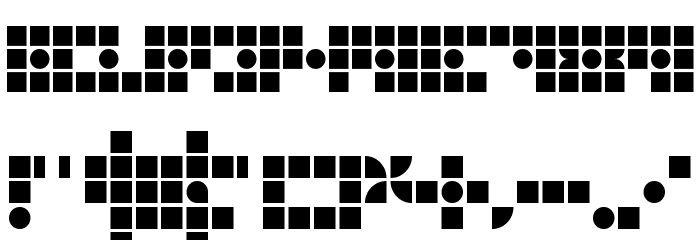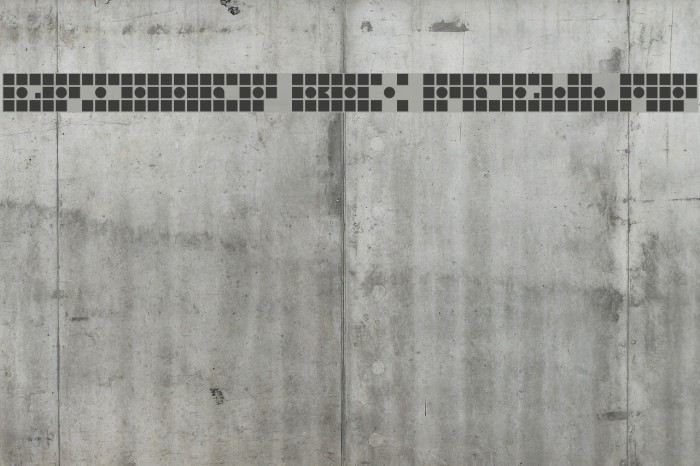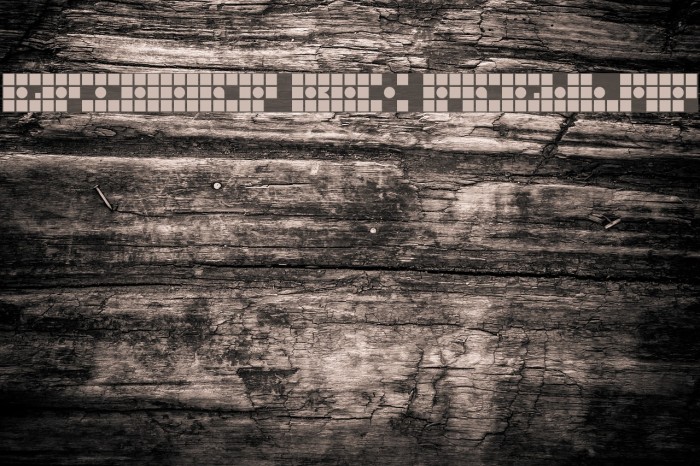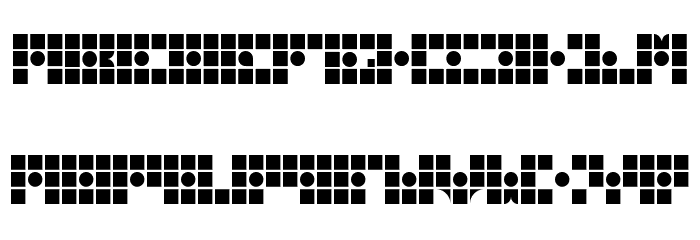
Gridder Box Regular Font
Gridder Box Regular Description
This font features a unique grid-based design where each character is composed of a series of small, uniformly sized squares. The geometric arrangement gives it a pixelated, digital appearance reminiscent of early computer graphics or retro video games. The characters are distinct and bold, making them stand out with a strong visual impact. The uniformity in size and shape of the squares creates a consistent rhythm across the text, while the use of negative space within the grid adds an intriguing visual complexity. This font is ideal for projects that aim to evoke a sense of nostalgia or a futuristic, tech-inspired aesthetic.
| Overall Style | Futuristic, Retro |
| Use Case | Logos, Headlines, Posters |
| Proposed Projects | Ideal for video game design, tech-themed posters, digital art projects, and retro-inspired branding. |